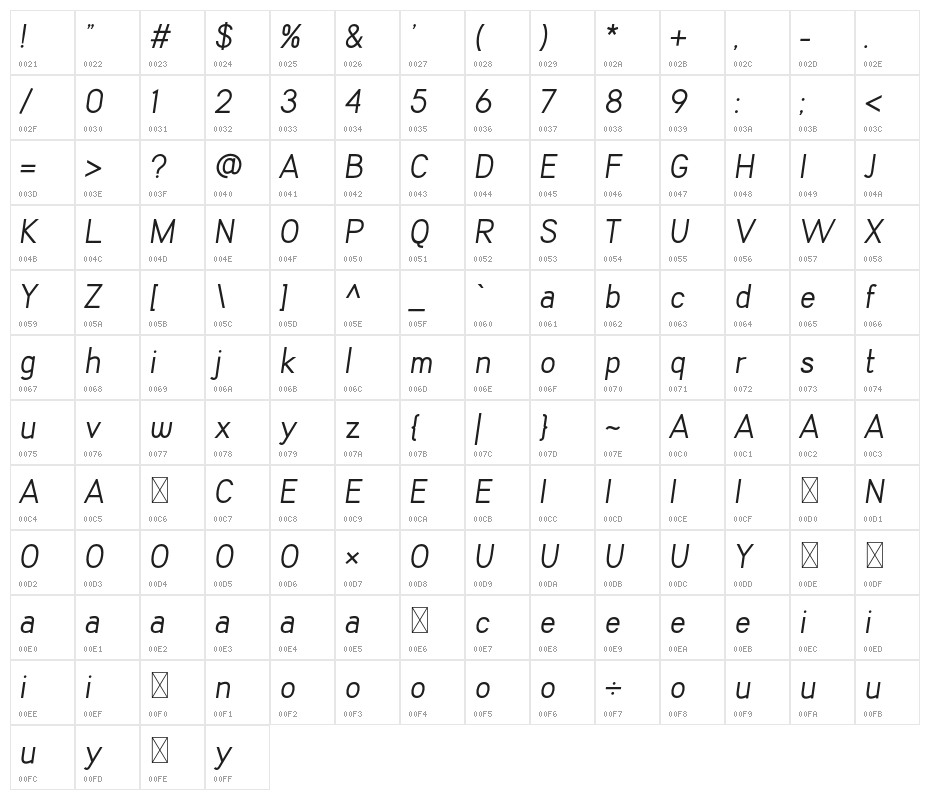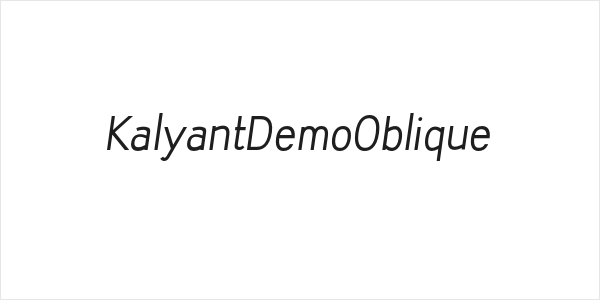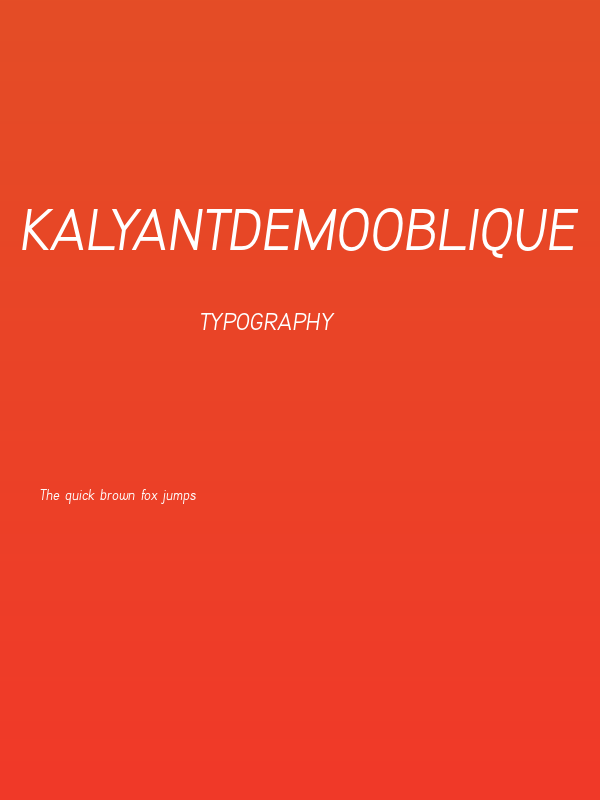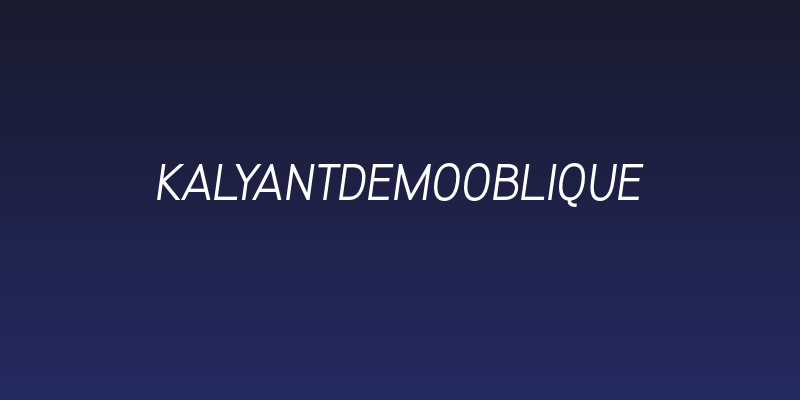
KalyantDemoOblique Font
KalyantDemoOblique Description
This font features a sleek and modern oblique style, characterized by its clean lines and slightly slanted characters. The uppercase letters are bold and assertive, while the lowercase letters maintain a consistent flow, providing a harmonious balance. The numerals are clear and distinct, making them easily readable. Special characters are well-defined, adding versatility to the font's usage. The overall design is minimalistic yet impactful, making it suitable for a variety of applications.
| Proposed Projects | Ideal for branding projects, modern web design, advertising, and editorial layouts. |